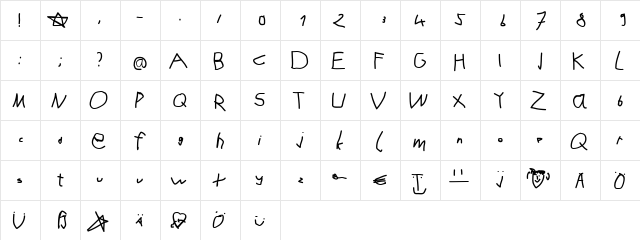
Karlas1B Regular
Design Context for Karlas1B Typeface
Karlas1B is a composed and adaptable typeface that performs quietly and consistently across a wide range of design contexts.